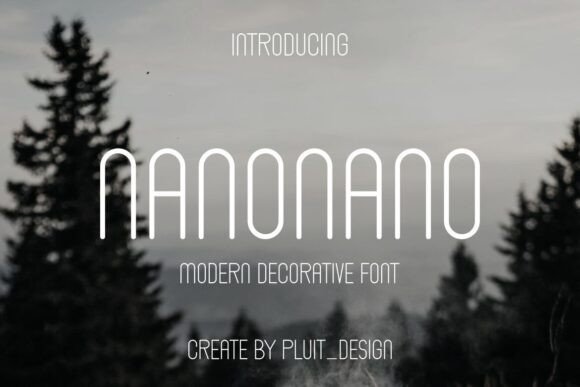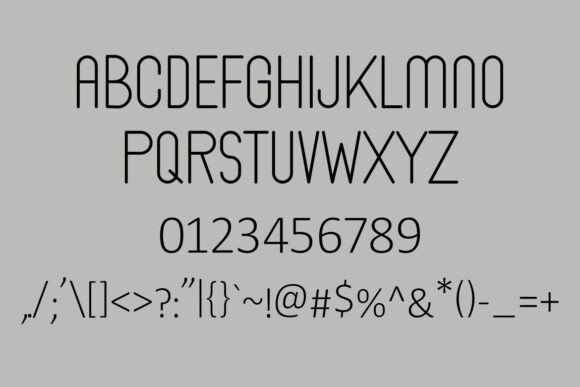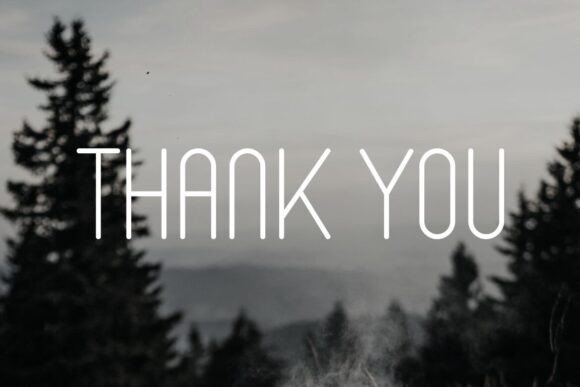
Nanonano Font: Modern Minimalist Typography for Logo Design
About the Nanonano Font
Unleash your creativity with Nanonano Font, a versatile font perfect for a wide range of applications. Nanonano is a sleek and minimalistic decorative font with a futuristic vibe. Its rounded, elongated letterforms make it a perfect choice for tech, fashion, and modern branding projects. With its clean lines and airy feel, Nanonano stands out in logos, posters, album covers, and digital design that calls for something stylishly unique.
Nanonano’s modern, sleek aesthetic makes it ideal for headlines, short-form text in marketing materials, and impactful branding elements. It excels in logo design, posters, and app icons where its futuristic feel can shine. However, its delicate forms and elongated letterforms are less suited for body copy or extended reading. Small sizes may lose legibility.
Pairing Nanonano effectively requires considering its minimalist nature. A geometric sans-serif like Futura or a clean serif like Garamond would create a sophisticated contrast. For a more playful approach, a rounded sans-serif like Bebas Neue could work well, but maintain a balanced hierarchy to avoid visual overload.
Nanonano’s core personality is sophisticated yet approachable. It’s best suited for brands projecting innovation, technology, or a forward-thinking sensibility. Its subtle curves add a touch of warmth counterbalancing the sharp lines, making it versatile enough for a variety of modern applications.